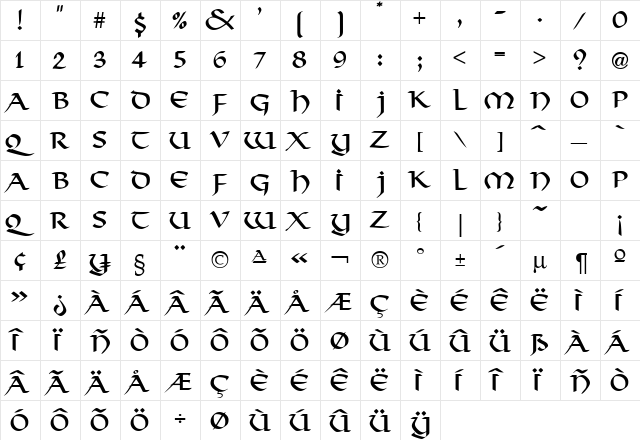
VikkingDB Normal
Design Context for VikkingDB Typeface
VikkingDB is a composed and adaptable typeface that performs quietly and consistently across a wide range of design contexts.